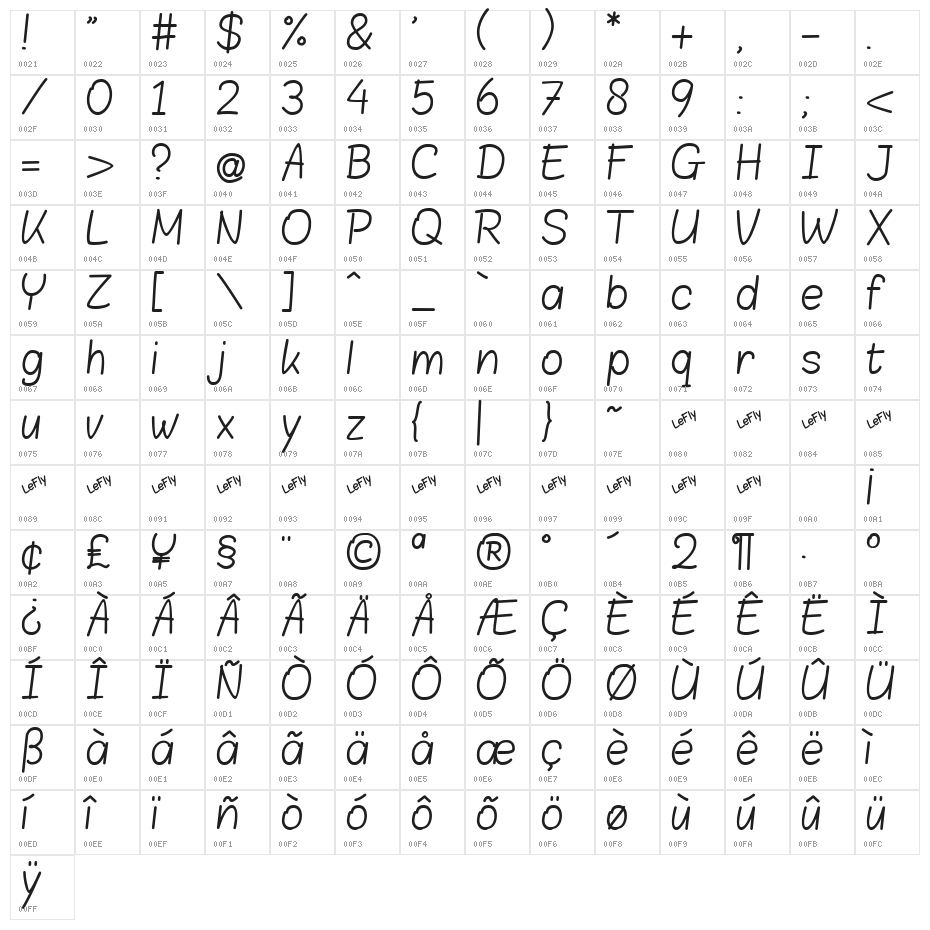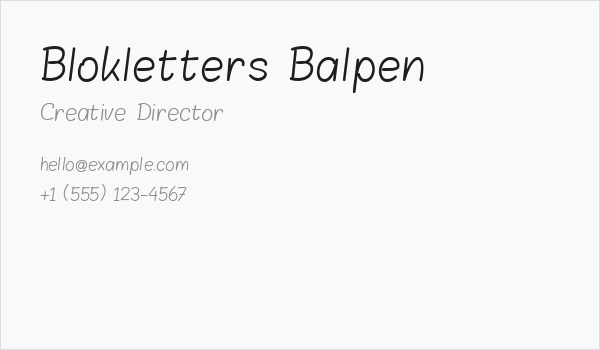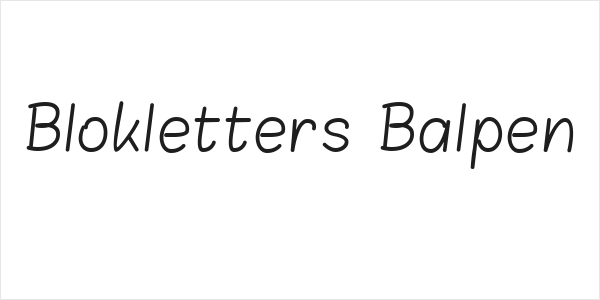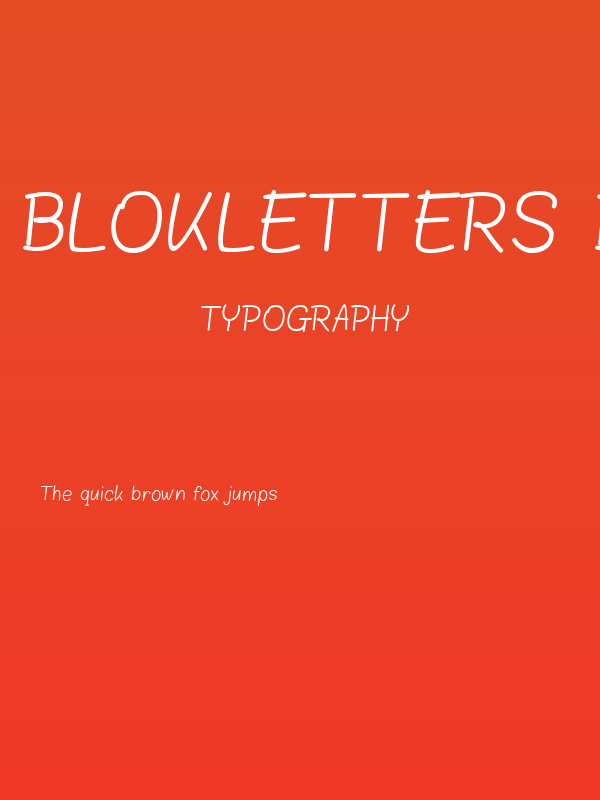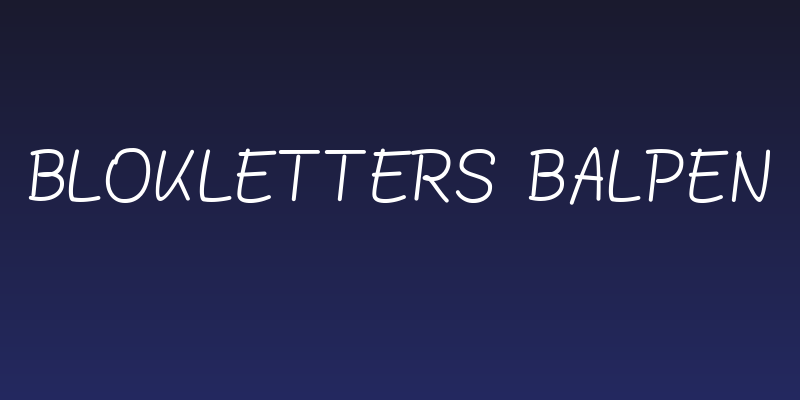
Blokletters Balpen Font
Blokletters Balpen Description
This font features a handwritten style that mimics the fluidity and casual appearance of writing with a pen. The characters are slightly slanted, adding a dynamic and informal touch. Uppercase and lowercase letters maintain a consistent flow, with rounded edges and smooth curves. The numerals and special characters are crafted to match the overall aesthetic, ensuring cohesion across all elements. The font's design is approachable and friendly, making it suitable for projects that require a personal or informal tone.
| Use Case | Headlines, Informal text, Personal projects |
| Proposed Projects | Ideal for personal notes, invitations, greeting cards, and informal branding projects. |